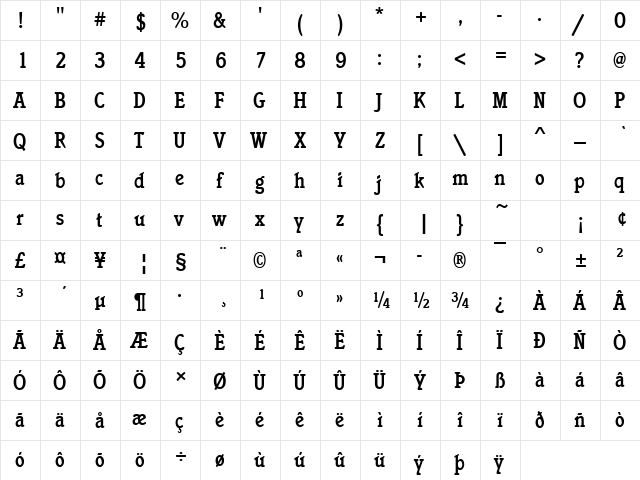
Italia Becker Med Cond Regular Font Preview
Italia Becker Med Cond Regular
Design Context for Italia Becker Med Cond Typeface
Italia Becker Med Cond is a composed and adaptable typeface that performs quietly and consistently across a wide range of design contexts. The condensed width makes it efficient for tight spaces without sacrificing legibility.